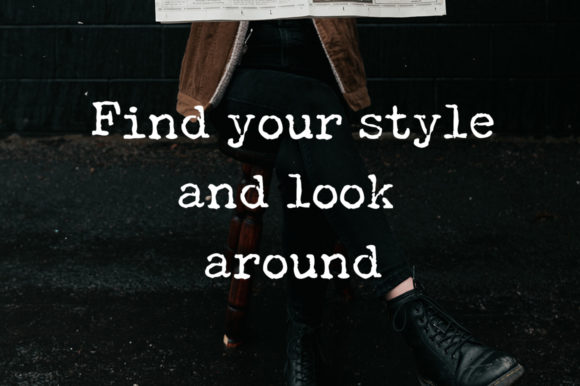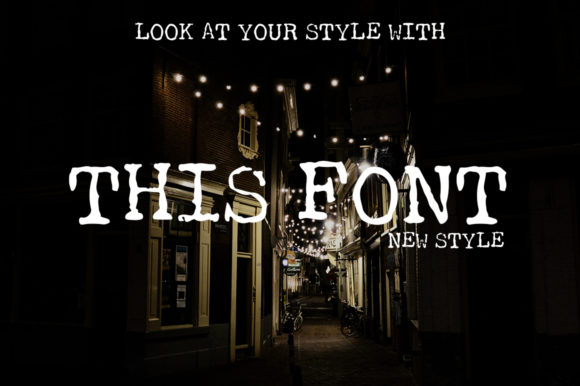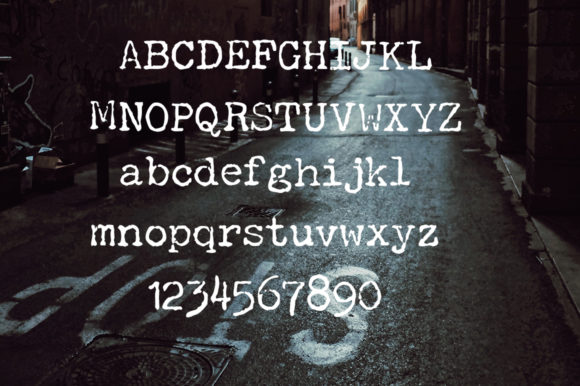
Room Font
Room: A Fun and Bold Slab Serif Font with a Unique Twist
Room is a distinctive slab serif font that combines boldness with a playful aesthetic. This typeface offers designers a powerful tool for creating impactful typography that brings a unique and fun character to various design projects.
Key Features of Room
• Fun Design: Features a lively and engaging appearance that captures attention
• Bold Character: Incorporates strong, eye-catching letterforms for maximum impact
• Unique Twist: Offers a distinctive look that sets it apart from other slab serifs
• Slab Serif Structure: Maintains the characteristic thick, rectangular serifs typical of slab serif fonts
• Versatile Application: Suitable for turning any design project into a standout
Ideal Uses for Room
Room’s unique characteristics make it particularly well-suited for:
• Eye-catching headlines and titles
• Playful branding and logo design
• Poster and advertisement layouts
• Social media graphics and digital content
• Packaging design for products targeting a fun-loving audience
When incorporating Room into your designs, consider the following tips:
• Use for headlines or short blocks of text to maximize its bold and fun impact
• Experiment with different sizes to highlight the font’s unique details
• Pair with simpler sans-serif fonts for body text to create contrast
• Consider using it in projects where you want to convey a sense of fun and originality
Room is an excellent choice for designers looking to add a fun and bold slab serif with a unique twist to their typographic toolkit. Its distinctive character makes it stand out in the world of typography. Whether you’re working on logo designs, creating eye-catching poster designs, or developing branding for projects that require a playful and bold look, Room offers the perfect blend of fun and impact.
Explore how Room can bring a unique and bold edge to your design projects. From fun branding to attention-grabbing headlines, this font provides the tools to create impactful and memorable typography that turns any design into a true standout.